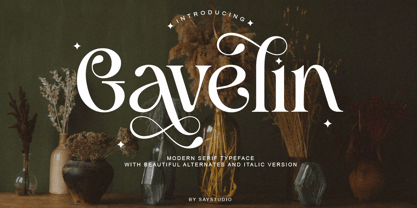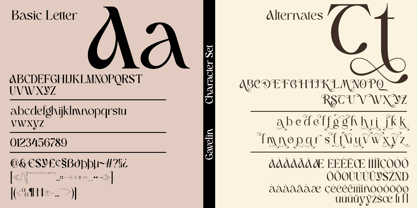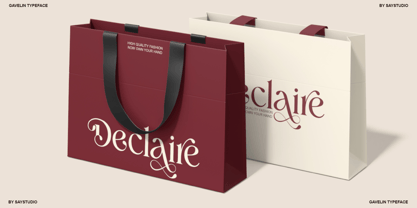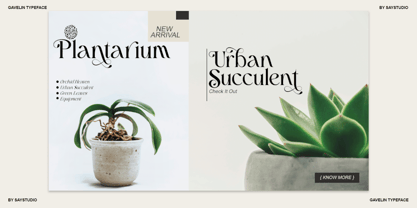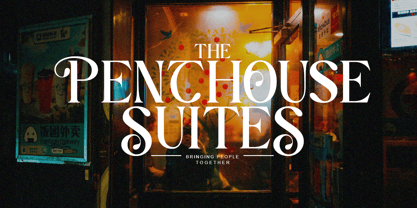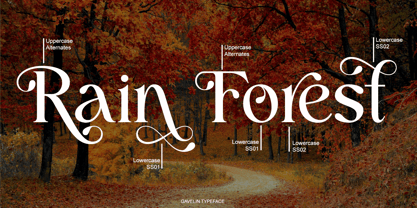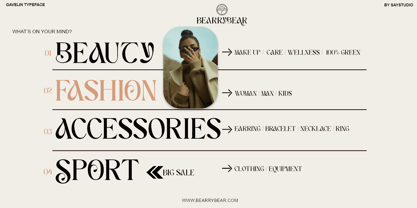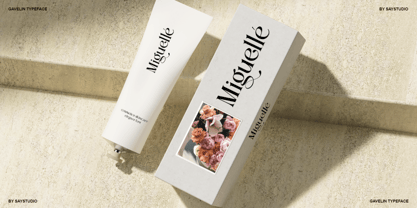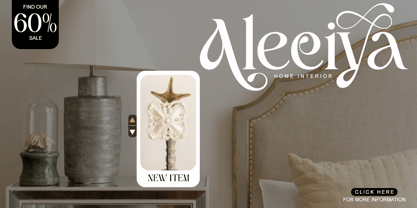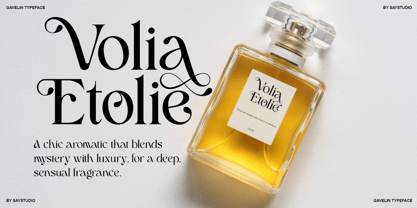
Gavelin
by Say Studio
The Gavelin Font Family was designed by Mussyayin and published by Say Studio. Gavelin contains 2 styles and family package options. More about this family
Gavelin is a modern serif font witrh luxury style . It's serif in many special charcter and italic version. Gavelin is the perfect multipurpose font for any project, with high contrast glyphs, giving it a feminine and masculine quality, modern, and easy to read. Great in layout design for quotes or body copy, best used as a display for headings, logos, branding, magazines, product packaging, invitations, and more. This font is easy to use and has OpenType features.
- Gavelin
- Gavelin Italic
- Stylistic Alternates
- Multilingual Support
Designers: Mussyayin
Foundry: Say Studio